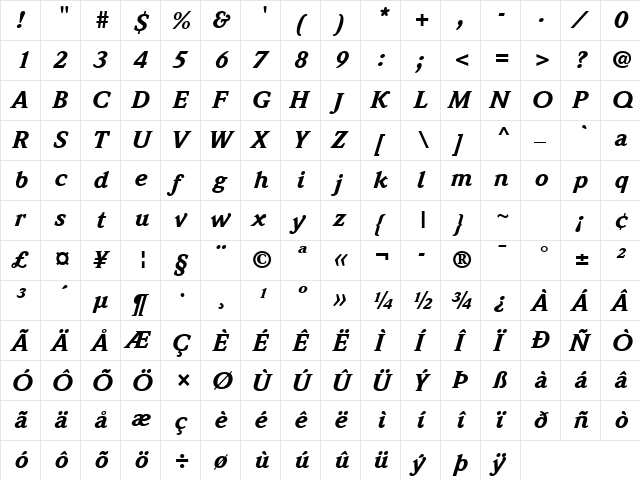
ITC Weidemann Com Black Italic
| Foundry | Linotype GmbH |
| Designer | Kurt Weidemann |
Design Context for ITC Weidemann Com Typeface
ITC Weidemann Com offers clean, dependable letterforms without strong stylistic allegiance, making it a practical choice for designers who need flexibility. The slanted form adds forward momentum and visual energy.